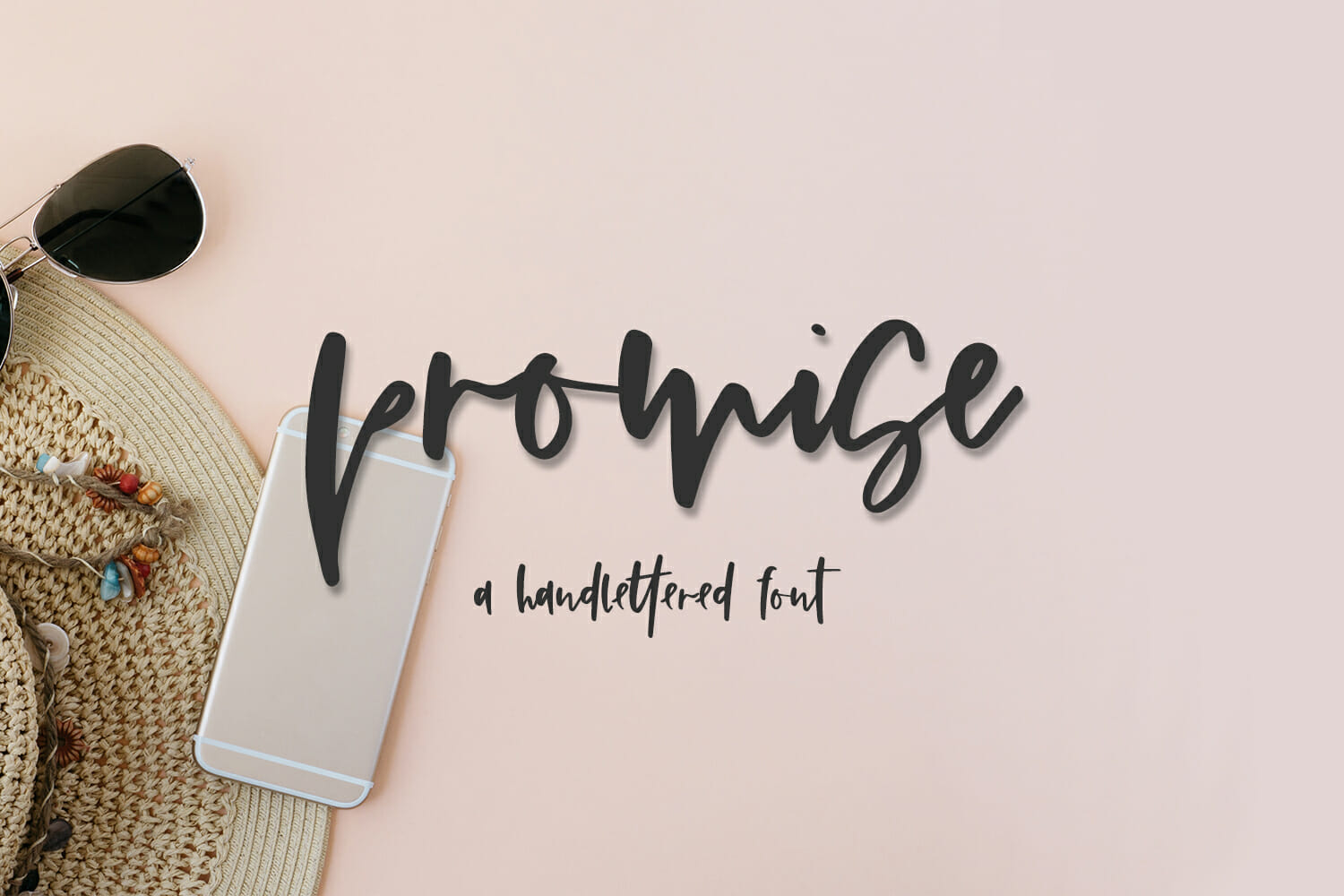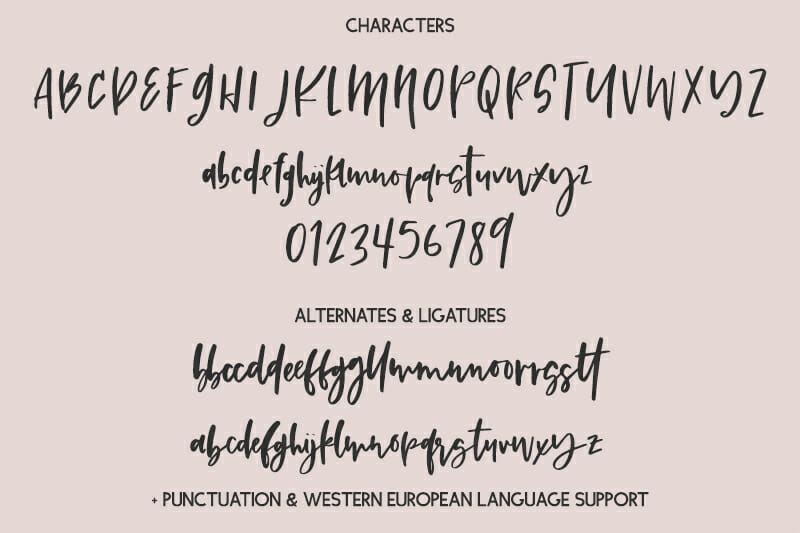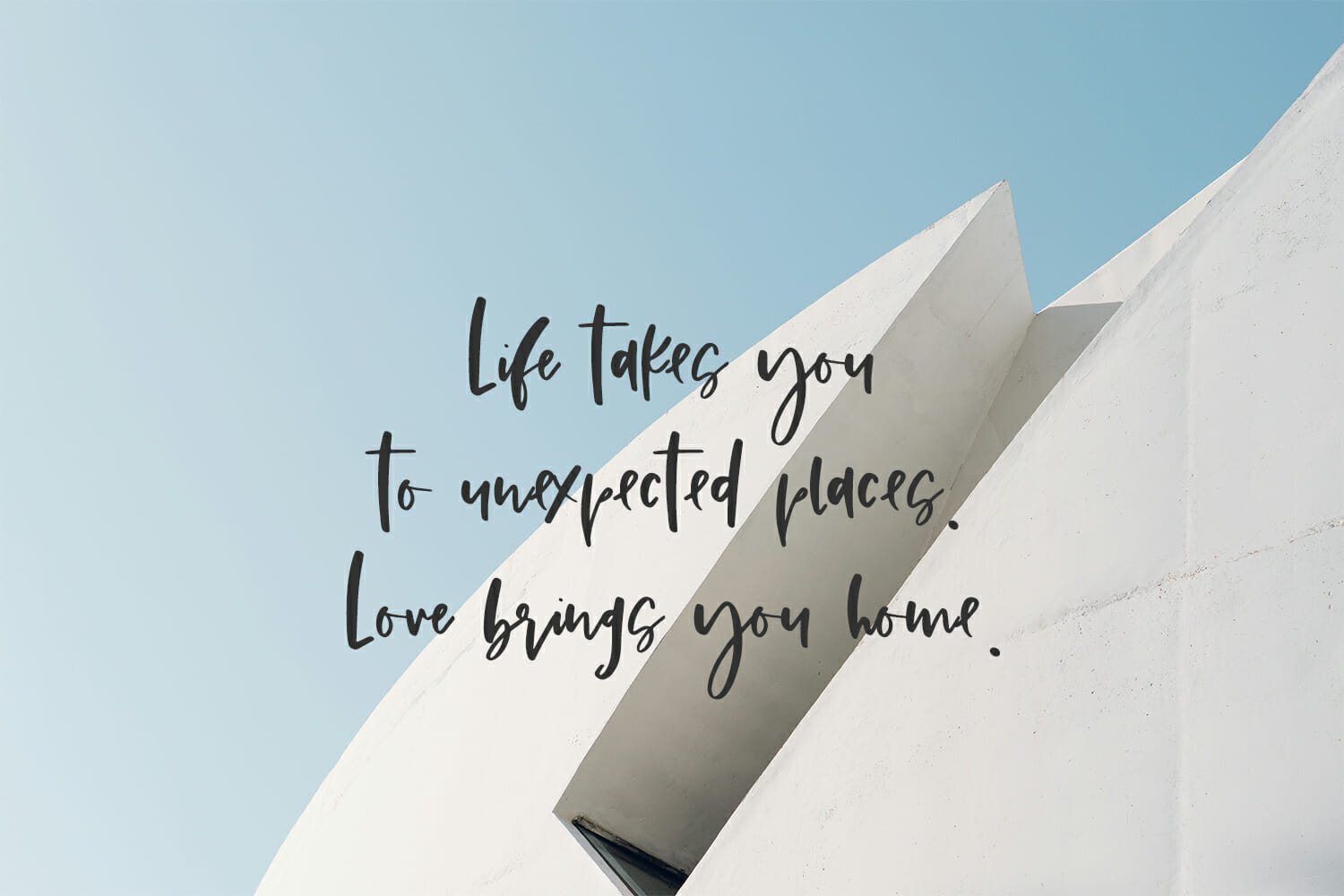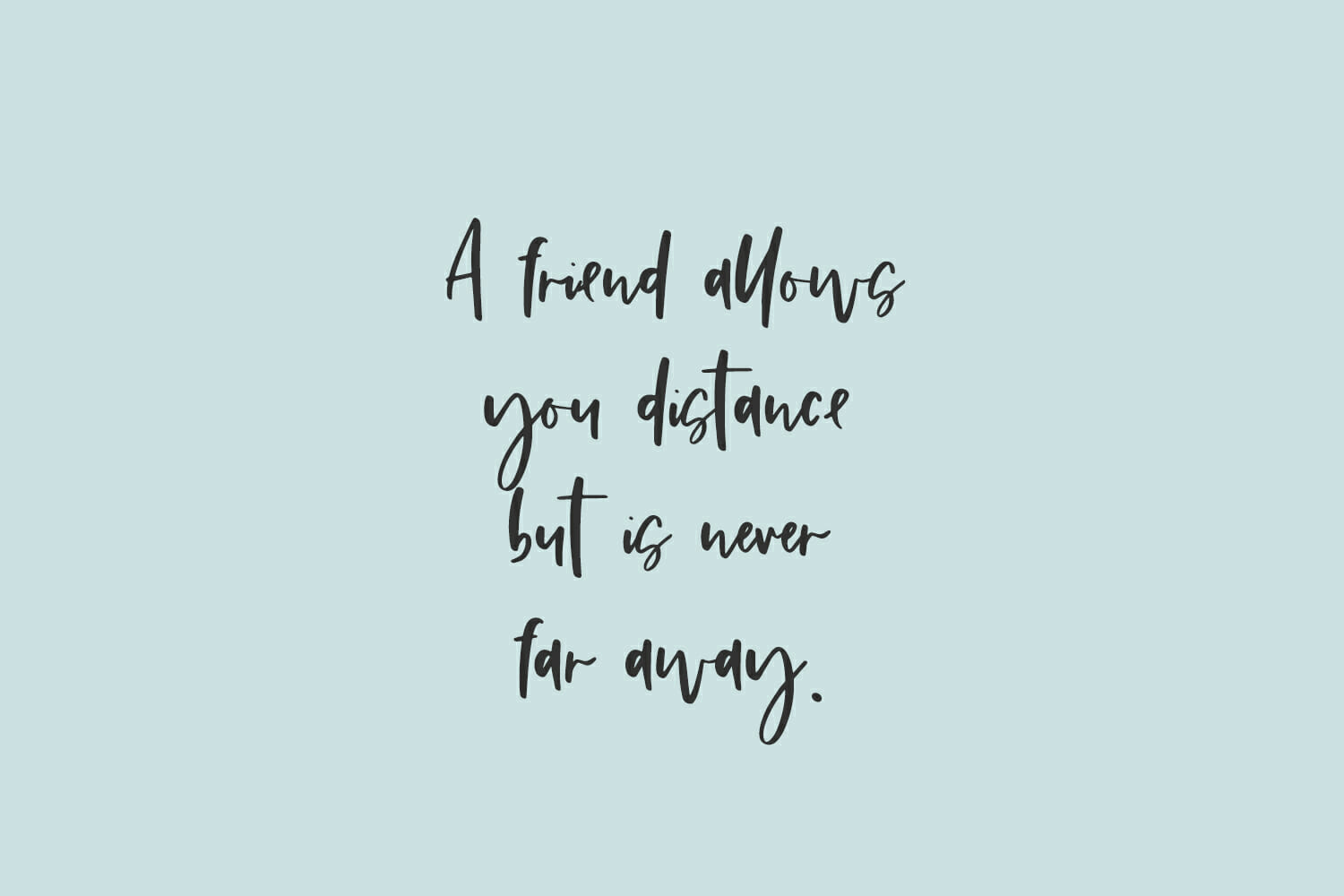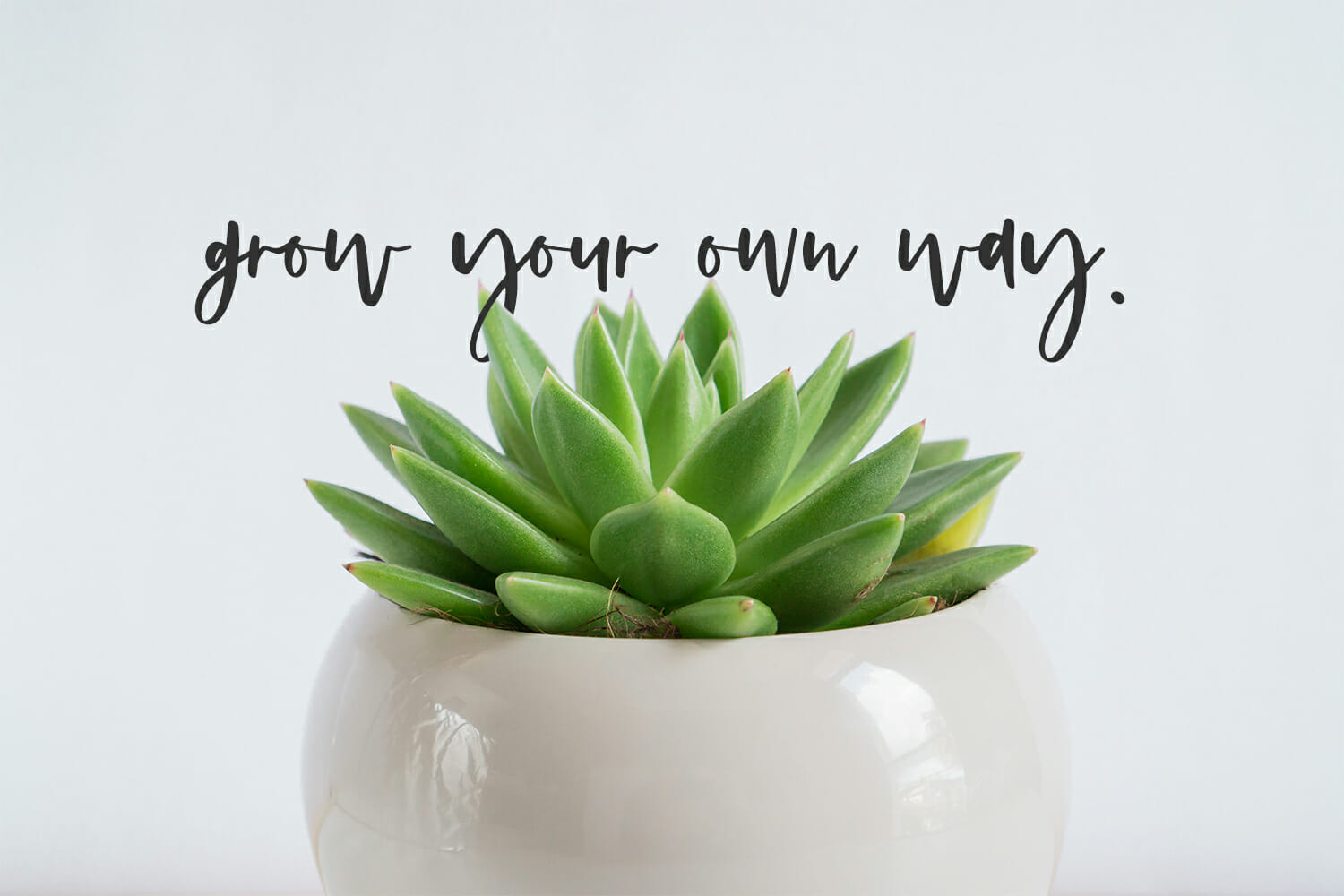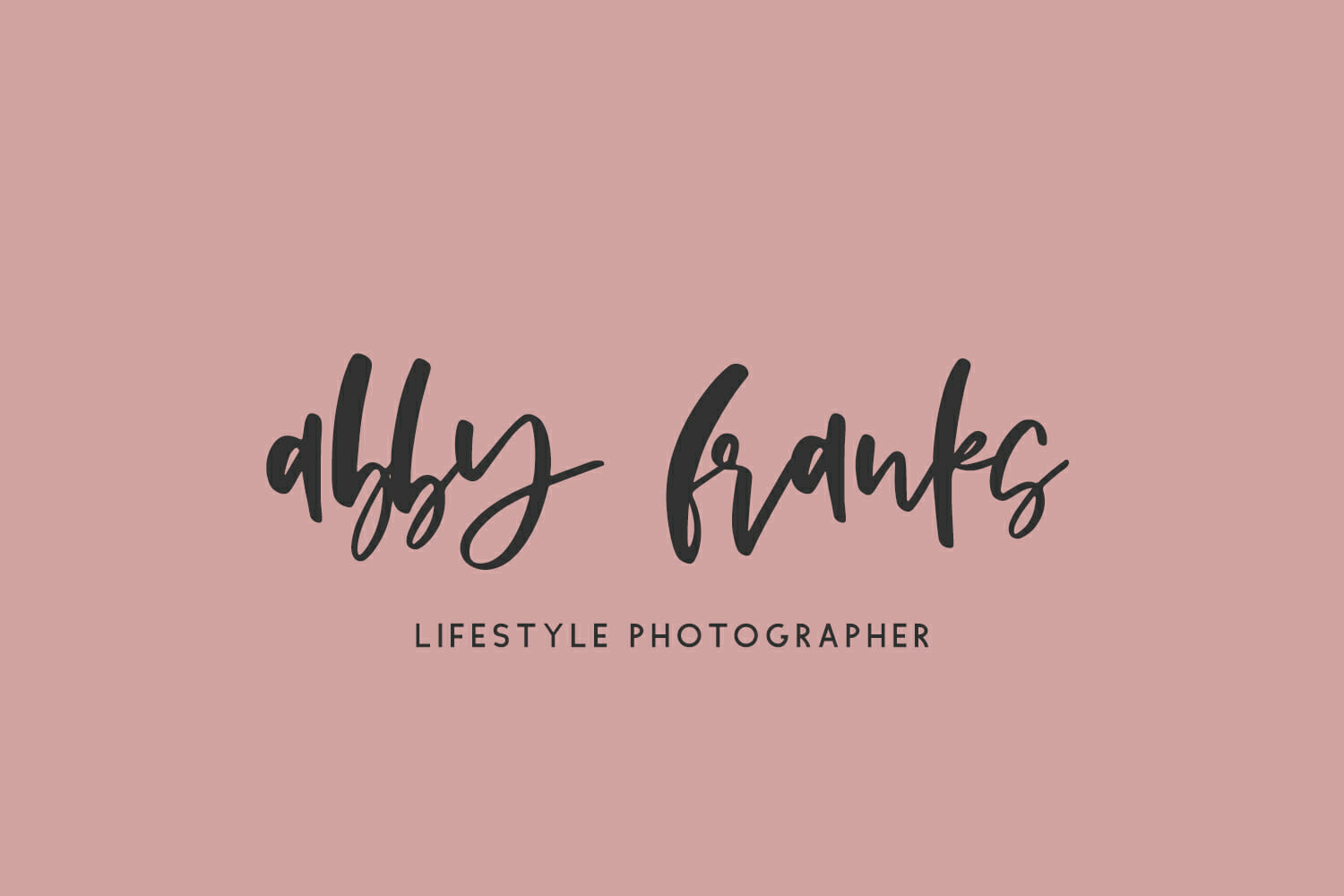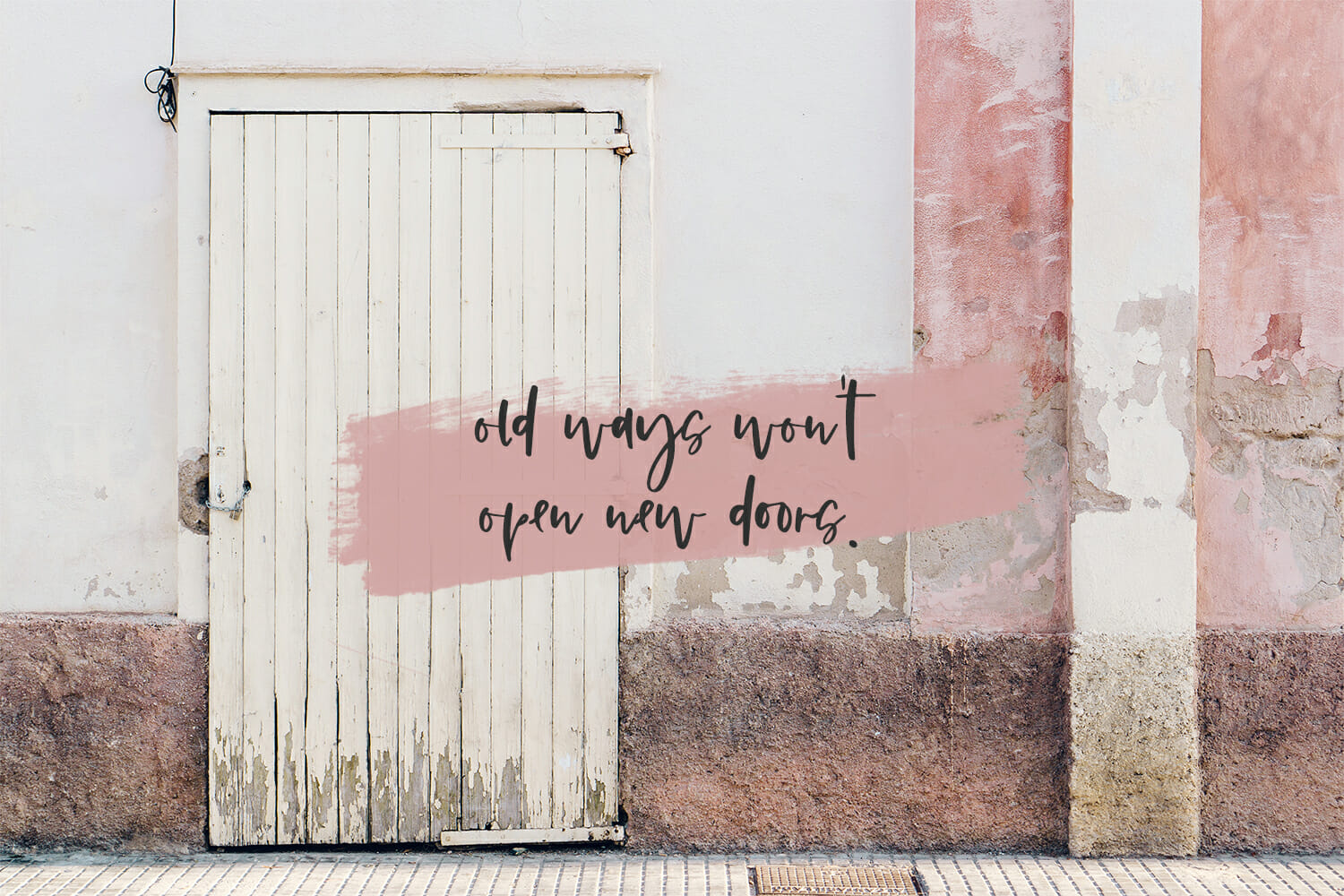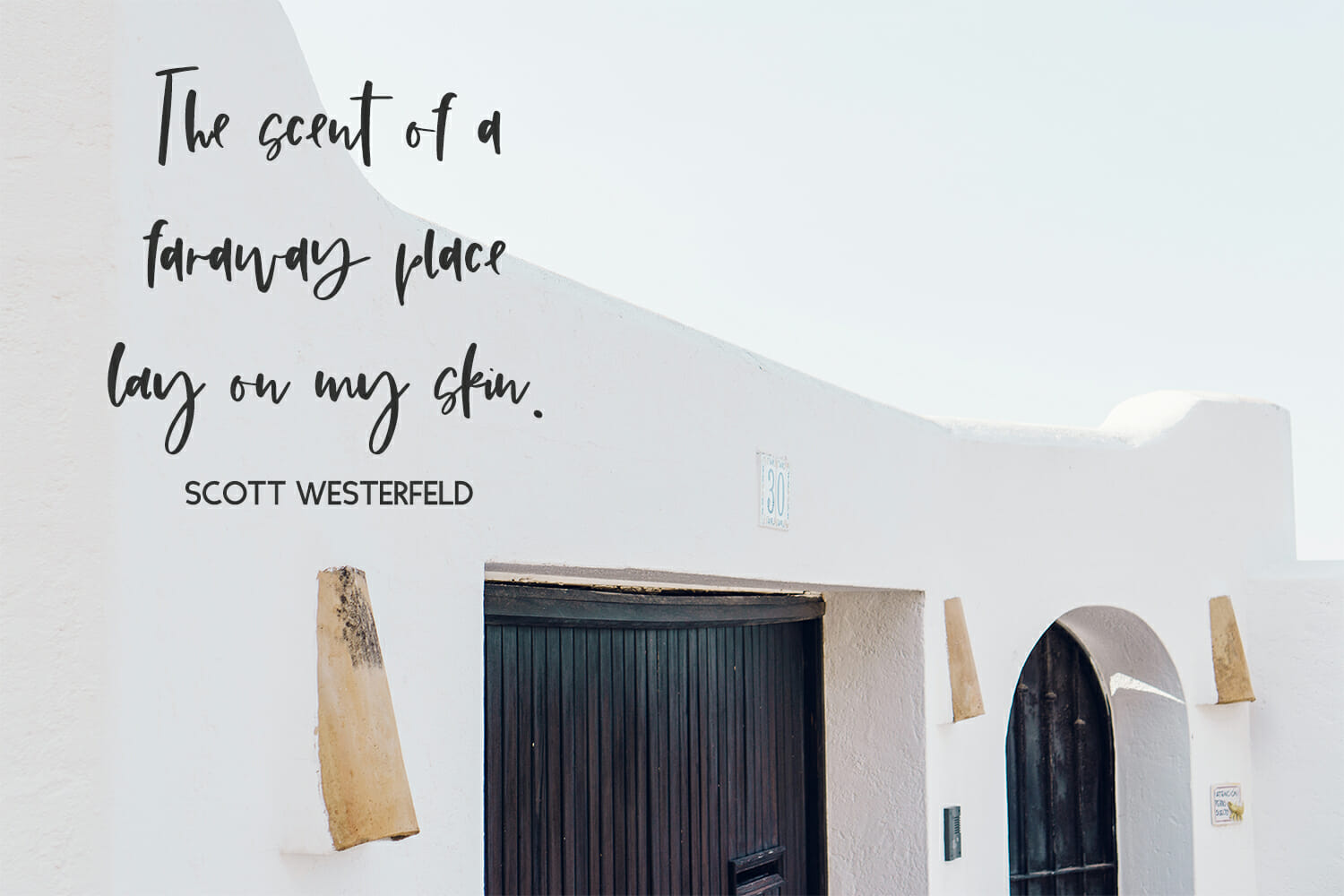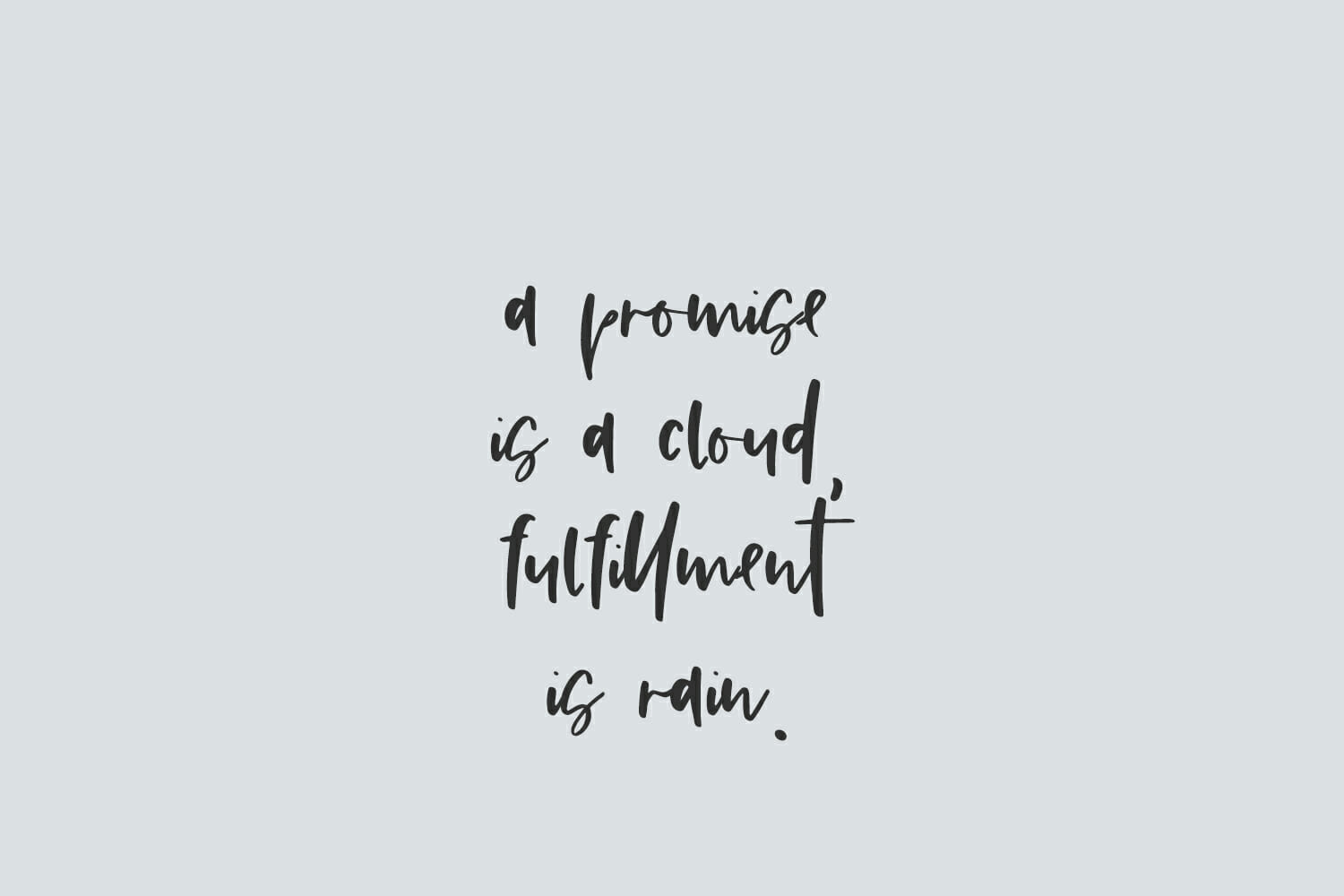
Promise Script is best for:
– logos + branding for gender-neutral applications
– website design + website accents – think design blogs, travel blogs, fashion blogs, & more
– clean print design, like magazines + flyers
– header elements that need handwritten touch
– quote graphics for social media
Promise Script includes:
– 26 alternates
– 13 ligatures – bb, cc, dd, ee, ff, gg, ll, mm, nn, oo, rr, ss, tt